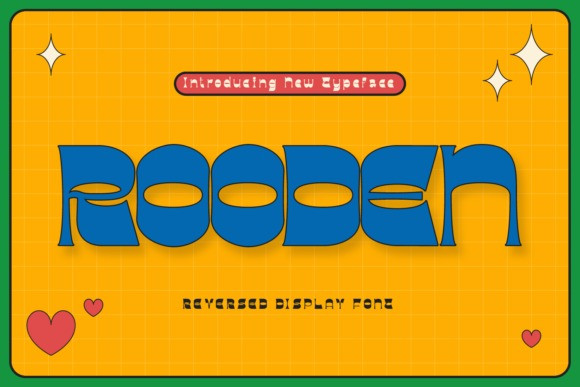
Rooden Font
Rooden is a reversed display font perfect for both print and digital needs. It will make your creations more inviting, fun, and beautiful to look at!